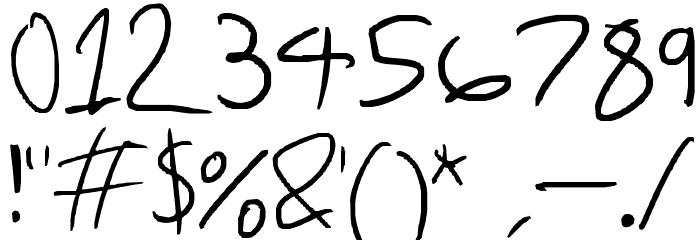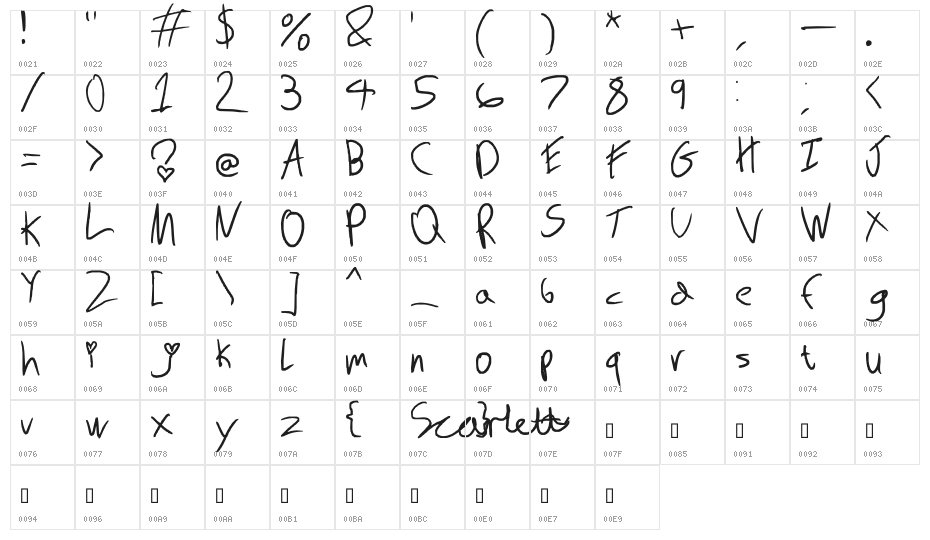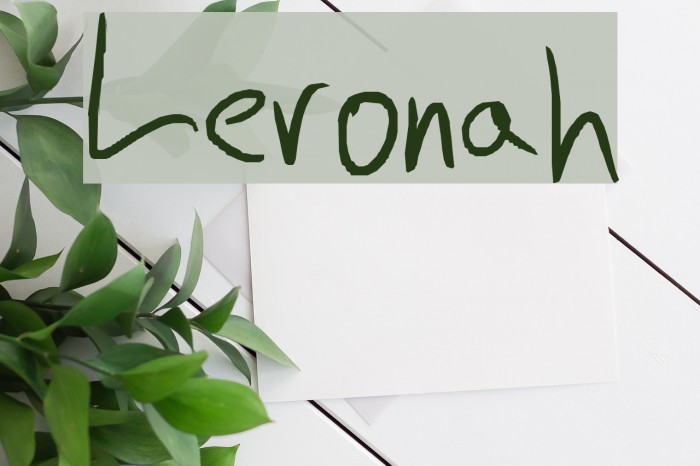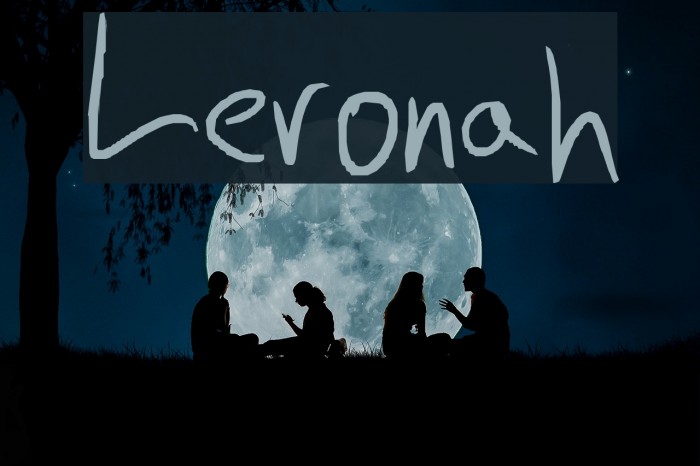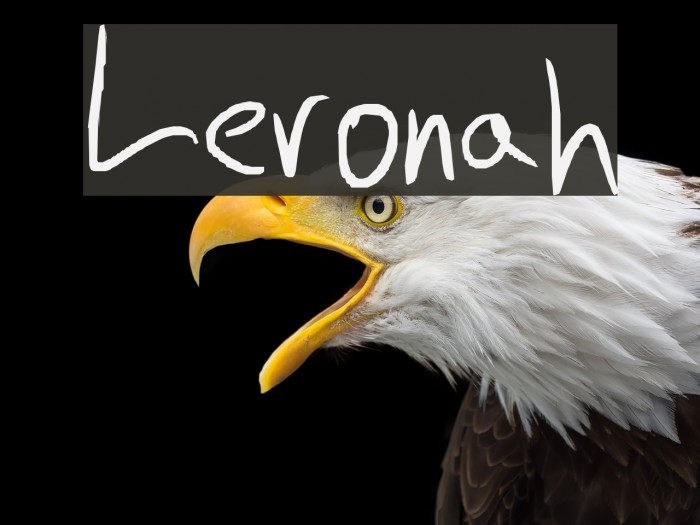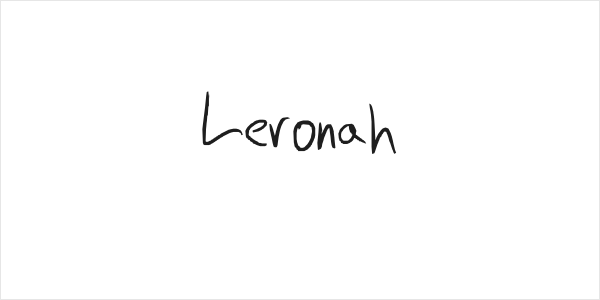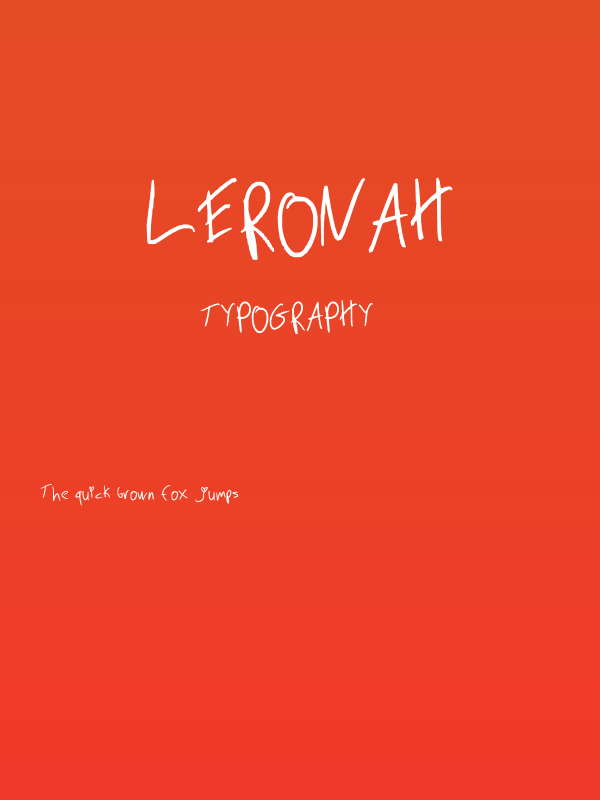
Leronah Font
Leronah Description
This font exudes a playful and casual handwritten style, characterized by its irregular strokes and whimsical charm. The letters are crafted with a freeform, organic flow, giving it a personal and informal touch. The uppercase and lowercase letters maintain a consistent style, with some letters featuring unique embellishments, such as hearts on the 'i' and 'j'. The numbers and special characters follow the same playful aesthetic, ensuring a cohesive look across all elements. This font is perfect for projects that require a touch of personality and creativity.
| Proposed Projects | Ideal for greeting cards, children's books, personal blogs, and creative branding projects. |